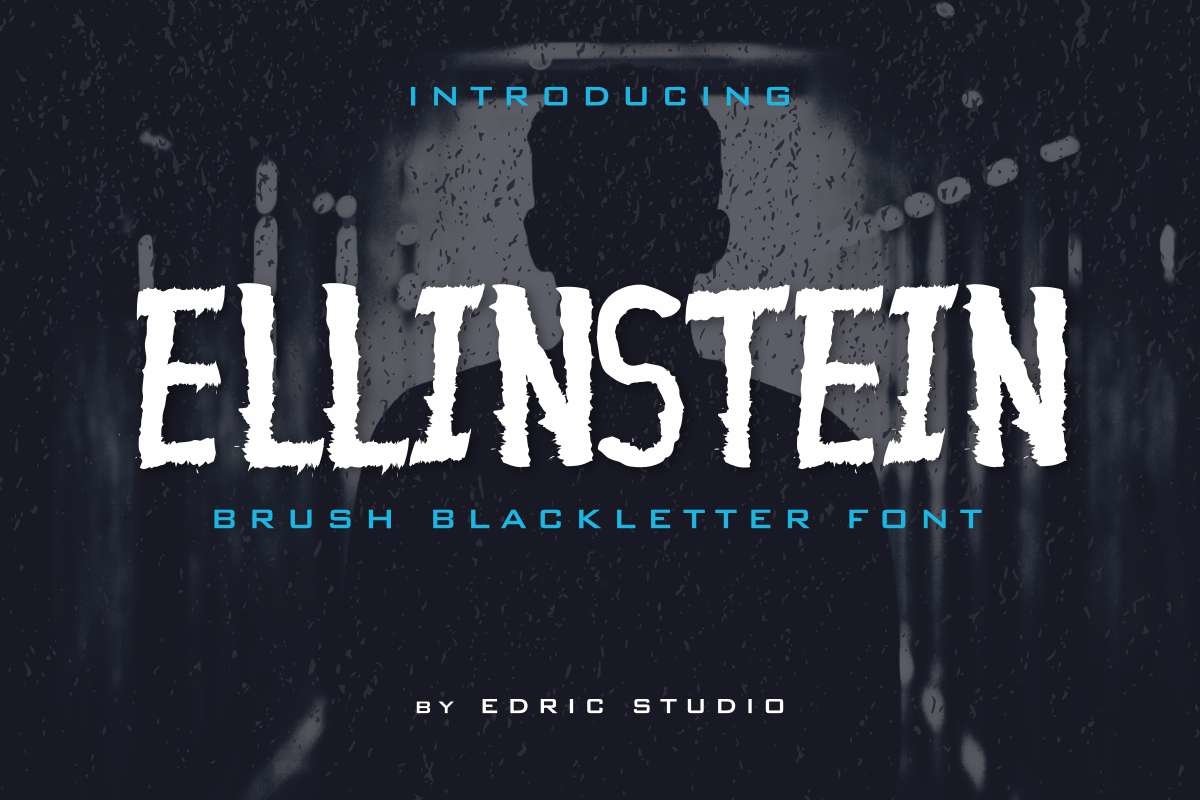
Ellinstein
Hola Creative People,Introducing The newest font from our studio : Ellinstein FontThis is a display decorative font, handcrafted from our Studio here in, Indonesia. The artists/designers of this unique tyeface is Ali and Suci.Ellinstein Font is an exclusive unique rough decorative display typeface with inky brush style. This font has a great characters set, perfectly managed with well spaced and kerning. The theme style of this font will horror,  vintage, movies, music and wet brush black-lettered style. You wont find any where else, the font like Ellinstein Font will be great for any projects including :poster, flyer, signage, cover, brochure etc. Many industries will be match for this typeface: events, gym, sport, fitness,  musician etcHere’s what you’ll get on the zip pack :